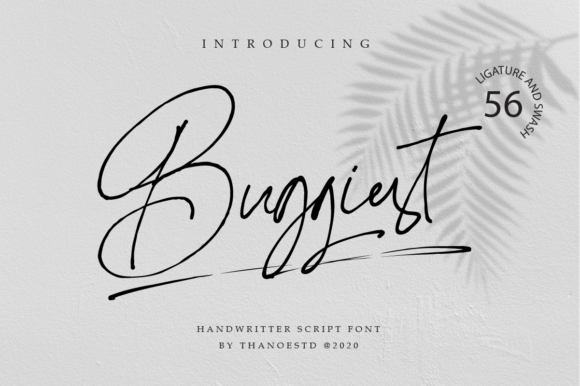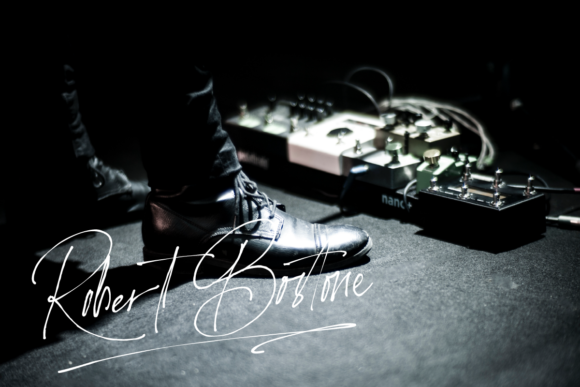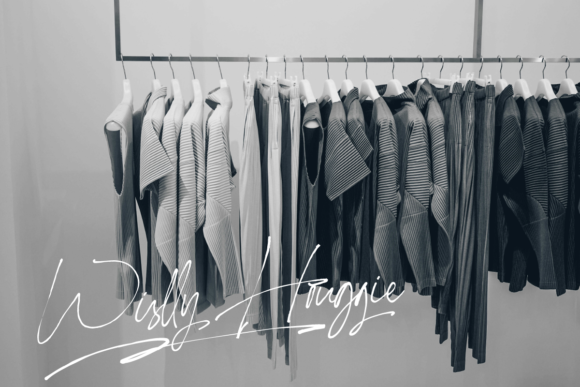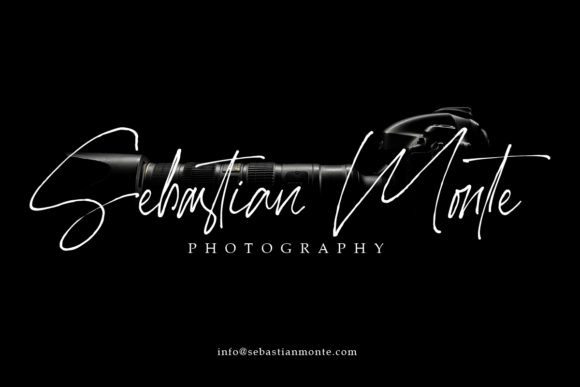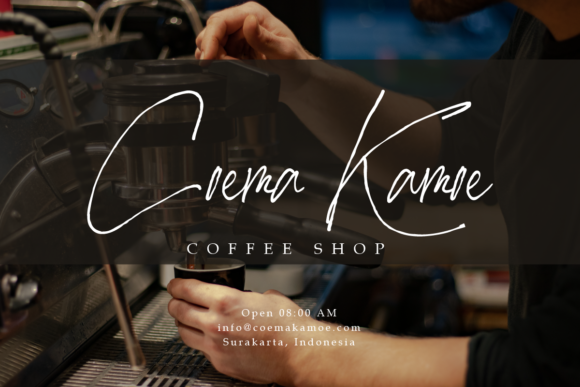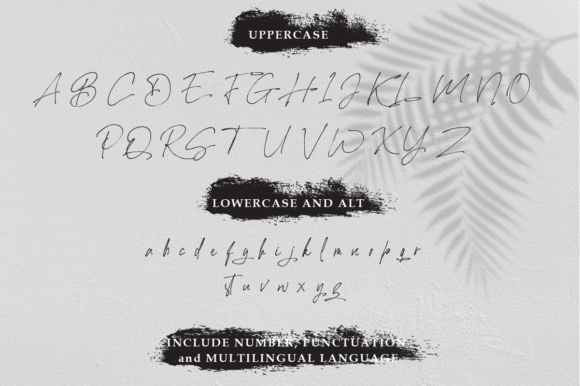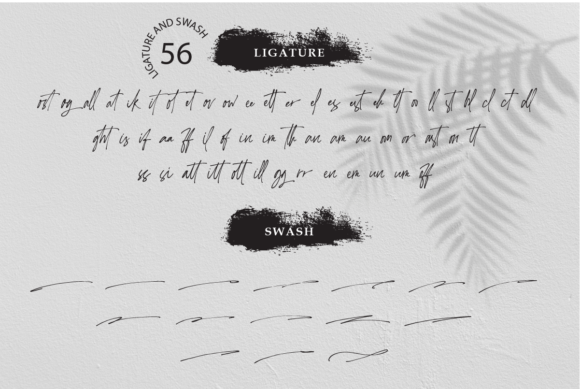
Buggiest Font
About Buggiest Font
Buggiest delivers an incredibly bold and modern font experience. This gorgeous script feels both familiar and fresh and will take any design project to the next level.